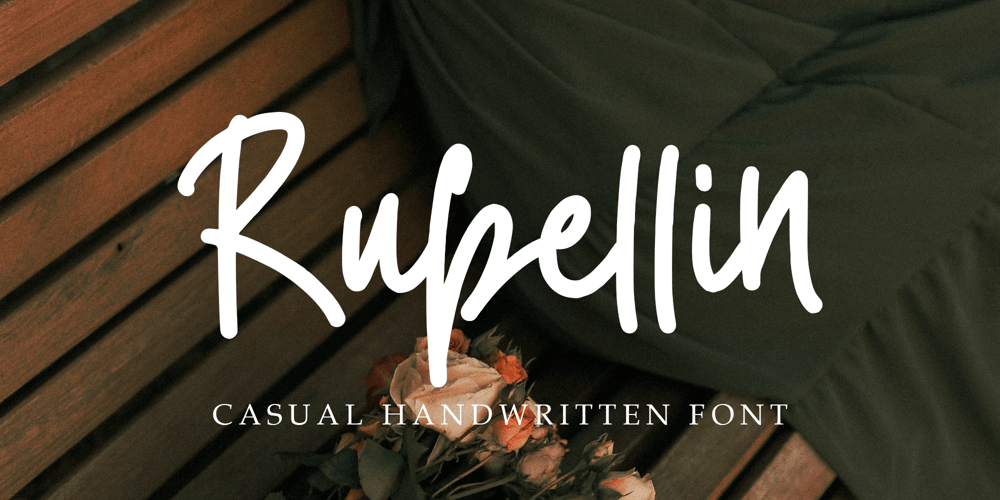
Rubellin
Rubellin font
Rubellin Font Family was designed by Muhammad Mujibulloh and published by MJB Letters. Rubellin contains 1 styles and family package options. Rubellin is a charming and versatile monoline font that exudes casual elegance. Its smooth, consistent strokes and friendly, approachable style make it perfect for a wide range of design projects. Whether you’re creating invitations, logos, packaging, or social media graphics, Rubellin adds a touch of warmth and personality to your work.Rubellin is ideal for projects that require a relaxed and inviting aesthetic. Its clean lines and balanced letterforms ensure legibility, making it suitable for both print and digital media. It is perfect for enhancing brand identity in logos, business cards, and stationery, creating eye-catching packaging for homemade and artisanal products, adding stylish flair to invitations and greeting cards for special events, and standing out on social media platforms with custom posts and announcements. Additionally, Rubellin’s modern yet approachable feel makes it excellent for web design, ensuring your content is engaging and reader-friendly.